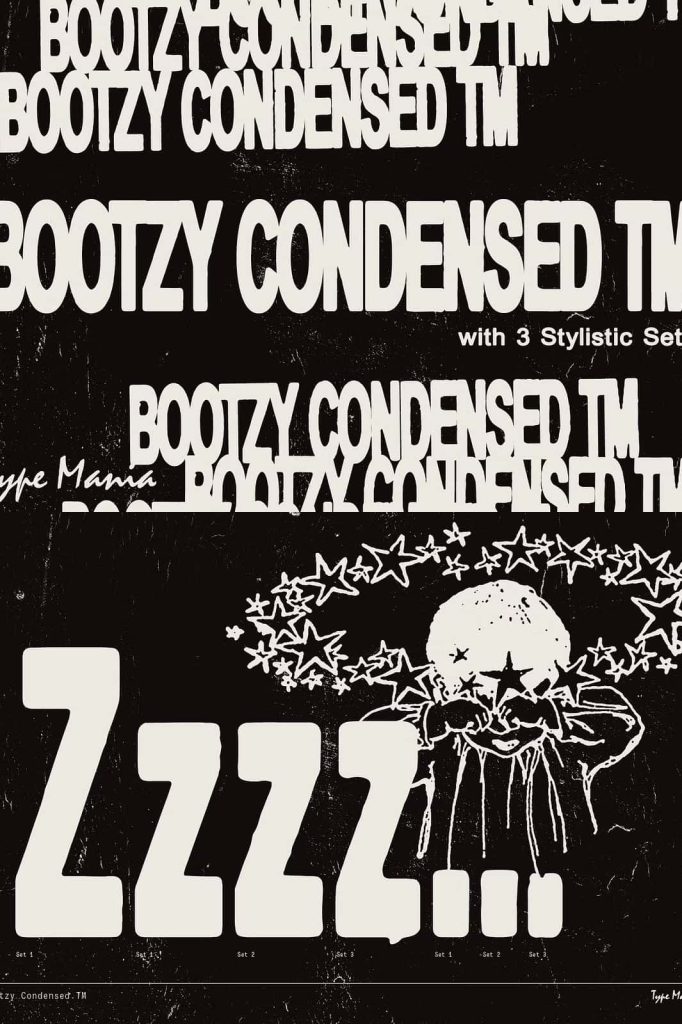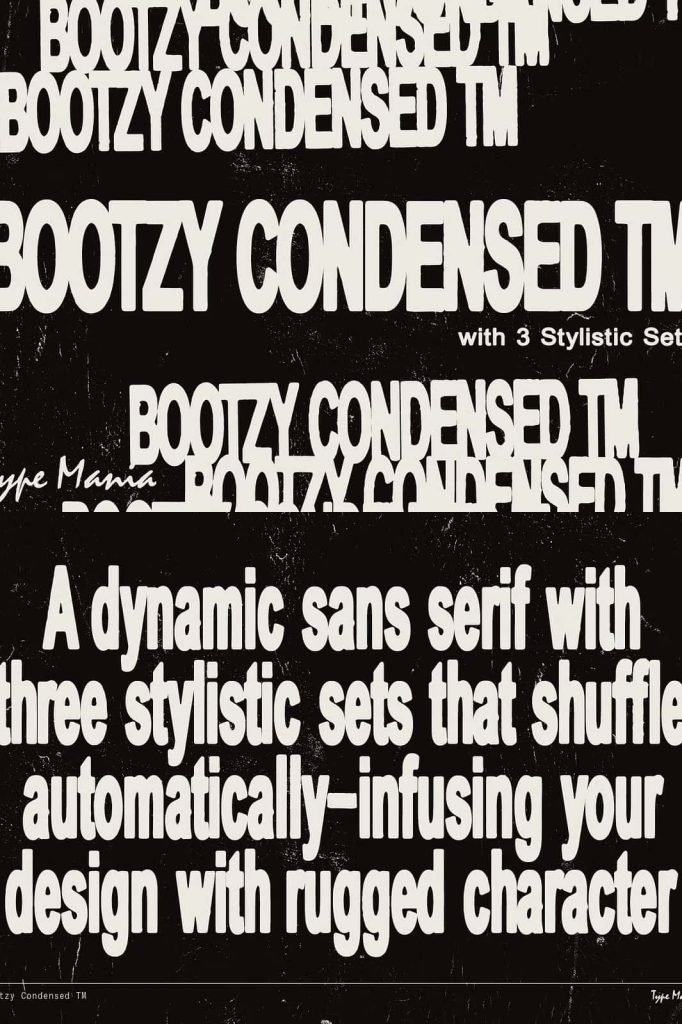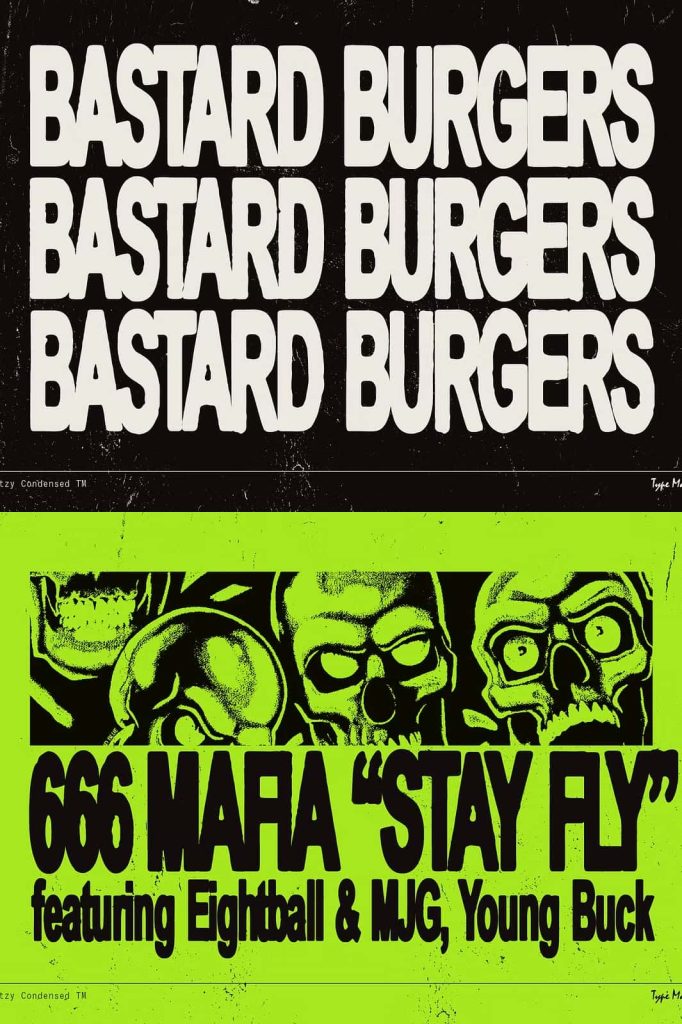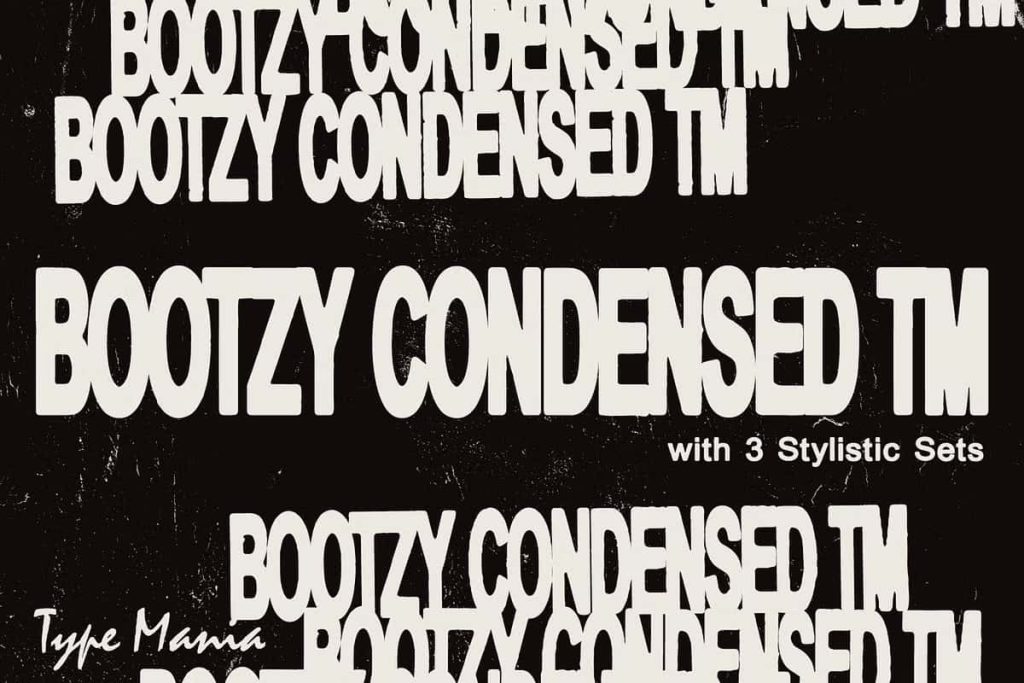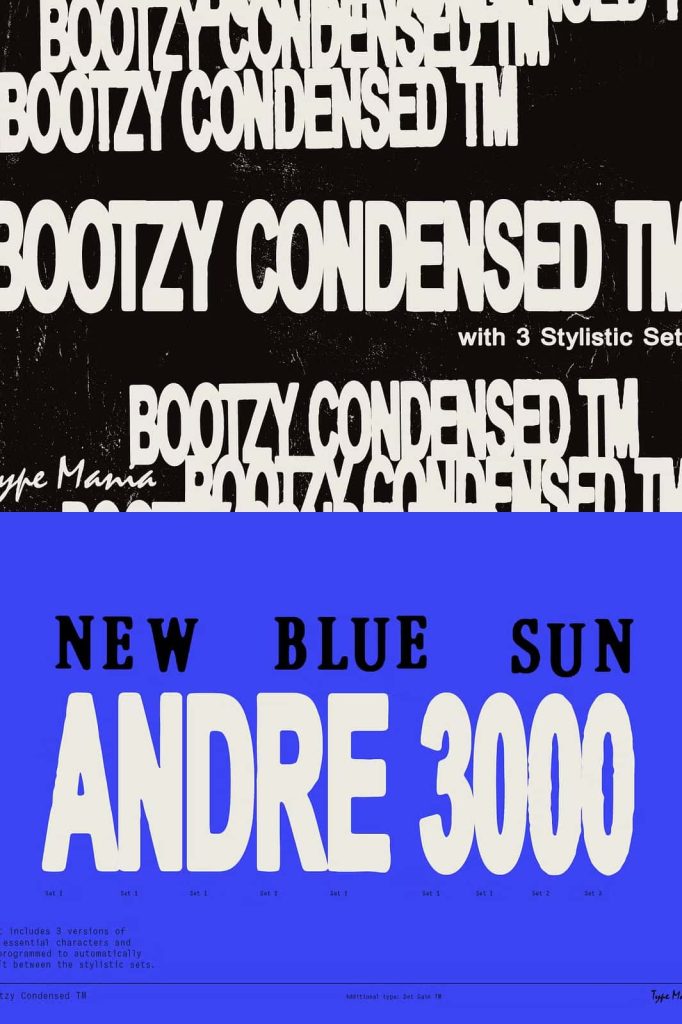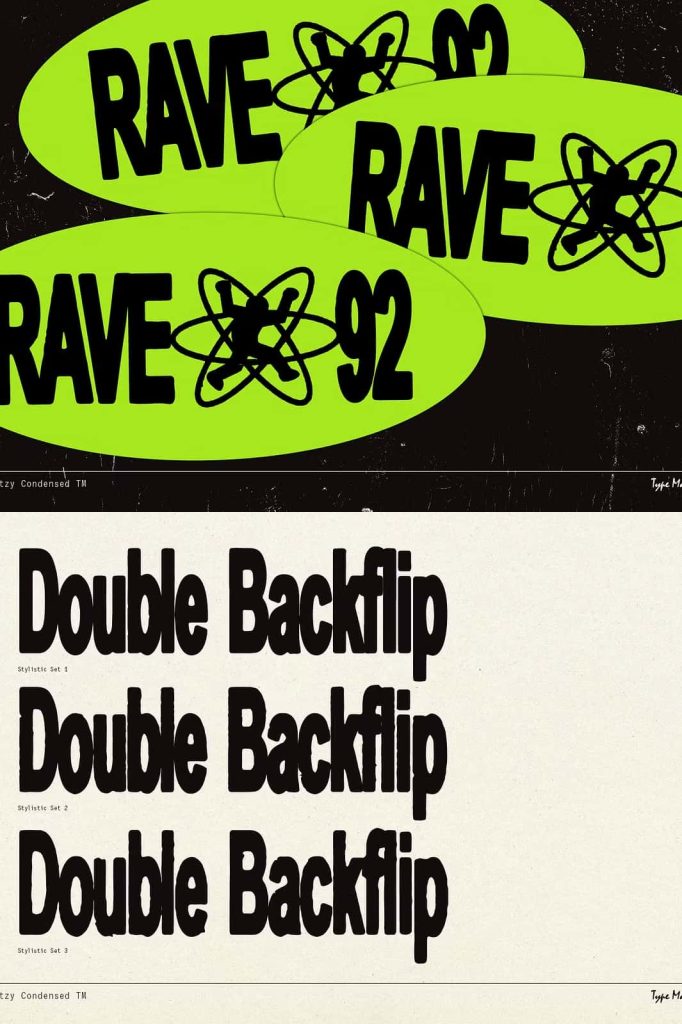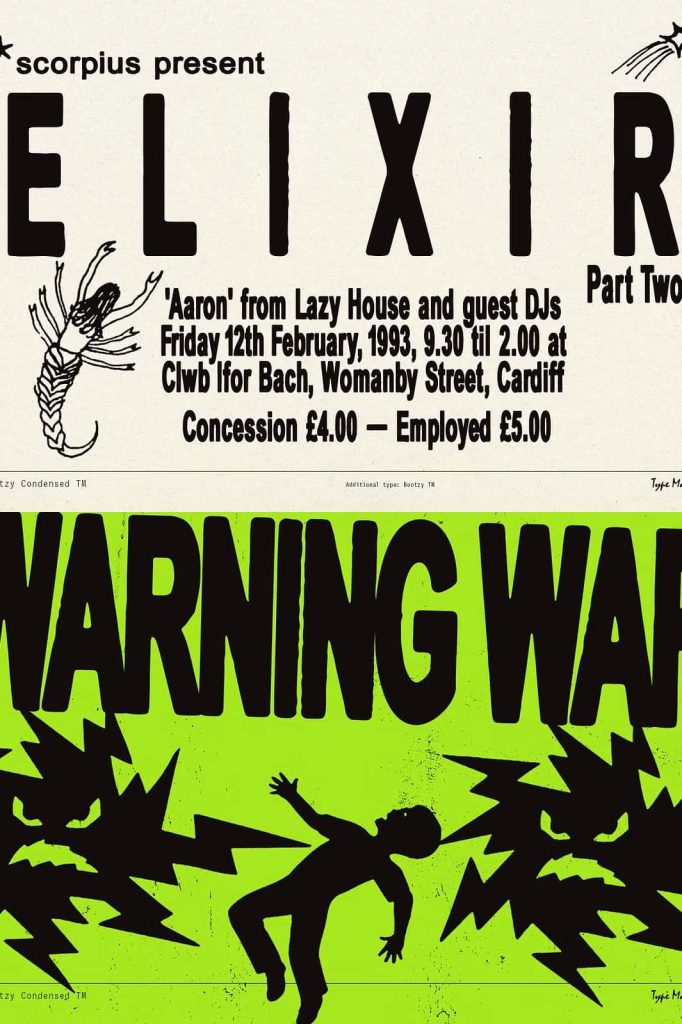
Bootzy Condensed TM: A Rugged Condensed Display Font for the Creative Underground
Bootzy Condensed TM is a bold, rugged display sans serif typeface created for designers who thrive outside the mainstream. Built on the raw spirit of DIY bootlegging culture, this font embraces imperfection, urgency, and attitude. It speaks directly to the underground, where handmade flyers, photocopied zines, and rebellious visuals define the language of design.
This condensed font delivers intensity and focus, allowing designers to communicate strong messages within limited space. Bootzy Condensed TM does not aim to be polite or refined. Instead, it asserts itself with confidence and grit, making every word feel deliberate and uncompromising.
Inspired by DIY Culture and Bootlegging Aesthetics
The visual identity of Bootzy Condensed TM draws from the bootlegging mindset, where creativity thrives despite constraints. Inspired by illegally copied tapes, hand-cut posters, and street-level promotion, this typeface reflects a culture that values speed, authenticity, and expression over perfection.
Its condensed structure mirrors the practical need to fit bold messages onto small surfaces, such as flyers taped to walls or zines printed on limited pages. The result is a font that feels efficient, raw, and expressive all at once.
Rugged Letterforms with Purpose
Each letterform in Bootzy Condensed TM carries a sense of urgency and intent. The tight spacing and strong vertical lines create a compact, aggressive rhythm that commands attention. Subtle irregularities and sharp edges give the font a rough texture without sacrificing readability.
This balance between clarity and grit makes Bootzy Condensed TM ideal for designs that need to communicate quickly and powerfully.
A Condensed Display Font Built for Impact
As a display sans serif, Bootzy Condensed TM excels in headline-driven layouts. Its condensed width allows designers to stack words tightly or stretch messages across narrow formats without losing visual strength. This makes it especially effective for posters, event flyers, album covers, and editorial titles.
The bold structure ensures that the font remains legible even at smaller sizes, while its rugged character maintains visual interest at larger scales.
Perfect for Zines, Flyers, and Rebellious Design
Bootzy Condensed TM feels at home in underground publishing. It works seamlessly in zines, independent magazines, protest graphics, and experimental layouts where authenticity matters more than polish. The font supports designers who want to break rules, challenge conventions, and create visuals that feel immediate and real.
Its strong presence also makes it suitable for streetwear branding, music promotion, and alternative cultural projects that reject corporate aesthetics.
Versatile Across Print and Digital Media
While rooted in analog inspiration, Bootzy Condensed TM performs just as well in digital environments. It brings texture and attitude to social media graphics, websites, and digital posters, helping designs stand out in crowded feeds.
When paired with clean sans serif fonts or minimal layouts, Bootzy Condensed TM creates contrast that amplifies its rebellious tone.
Why Choose Bootzy Condensed TM?
Bootzy Condensed TM offers designers a powerful tool for bold, expressive communication. Its condensed form, rugged character, and DIY-inspired aesthetic make it an excellent choice for projects that demand intensity and authenticity.
If your work lives in the underground and your designs aim to challenge the ordinary, Bootzy Condensed TM delivers a typographic voice that feels raw, confident, and unmistakably rebellious.